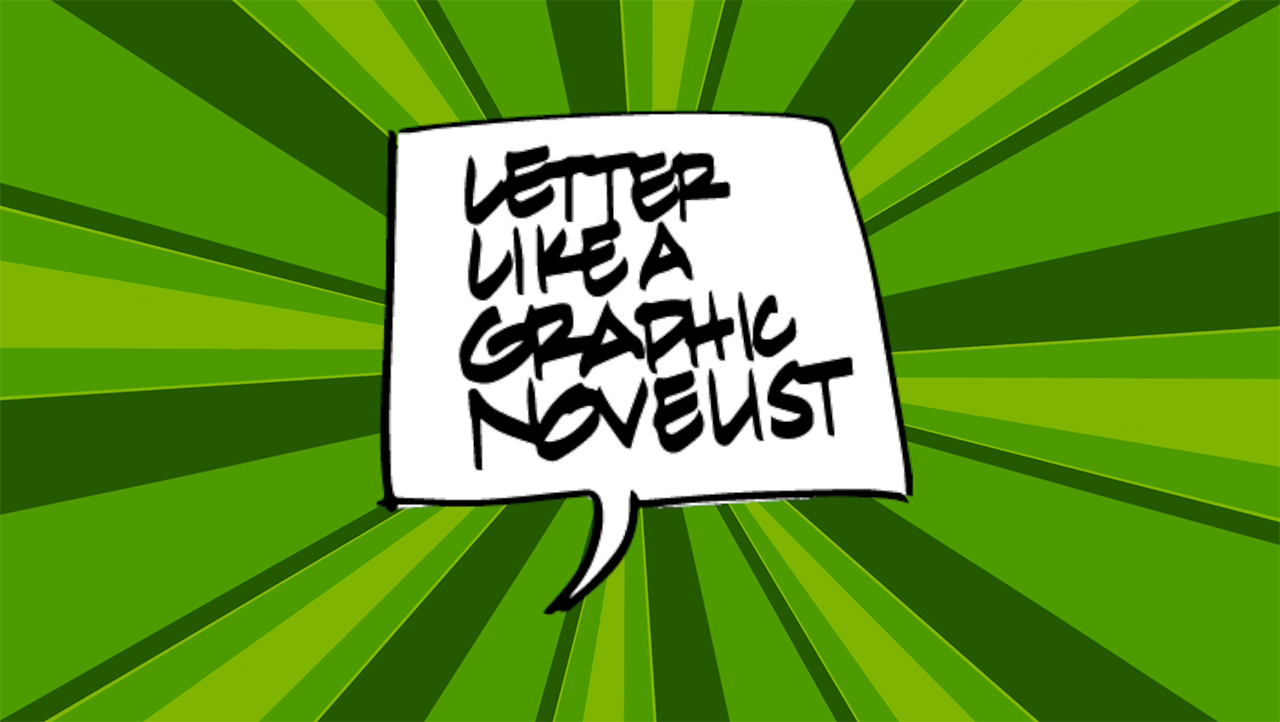
Letter like a Graphic Novelist
Have you ever wondered what it would be like to letter like a graphic novelist?
This is a fast and fun lettering style that is great for:
1. Improving your handwriting
2. Combining with images to tell a story
3. Collaborating with other artists
AND...this is a great time to letter with friends and family!
Day One…
First we will begin by putting pencil to paper,
just like architects do when sketching out their ideas and designs.
Day Two…
Then we will switch to ink and with a twist of a nib,
give the lettering style a comic-book look.
Day Three…
Finally we will scale up and make powerful words that POP! And cover layout. ;)
Monoline Nibs
From handwriting to outlining...these are great,
all-purpose markmakers!
Brush + Wedge Nibs
All-in-one marker that we will use for writing the story to make 3-D letters go "KAPOW!"
Big Wedge
When you want to make a statement, go BIG! With the BigOne® wedge nib.